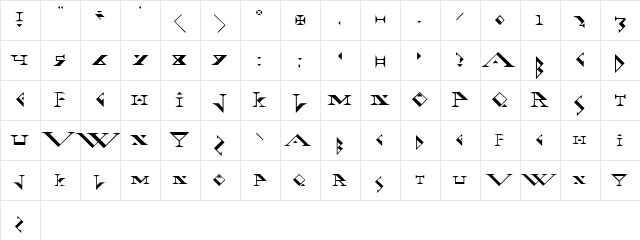
Fadgod Regular
Design Context for Fadgod Typeface
Fadgod is a composed and adaptable typeface that performs quietly and consistently across a wide range of design contexts.
Pro Tip: Use Fadgod in both headline and body roles to test its range before committing to a single application.